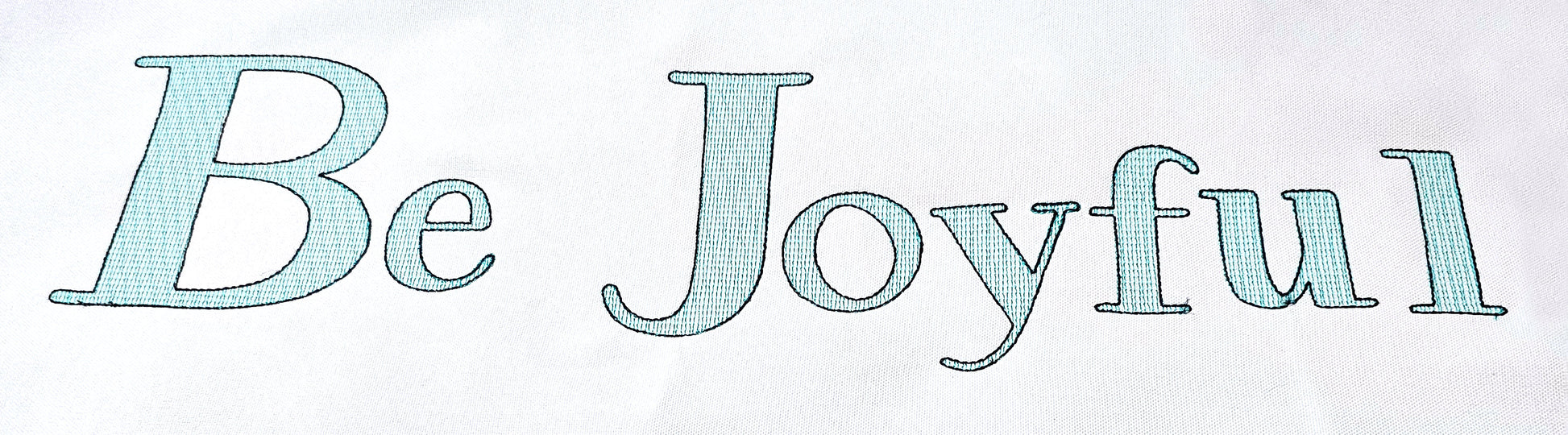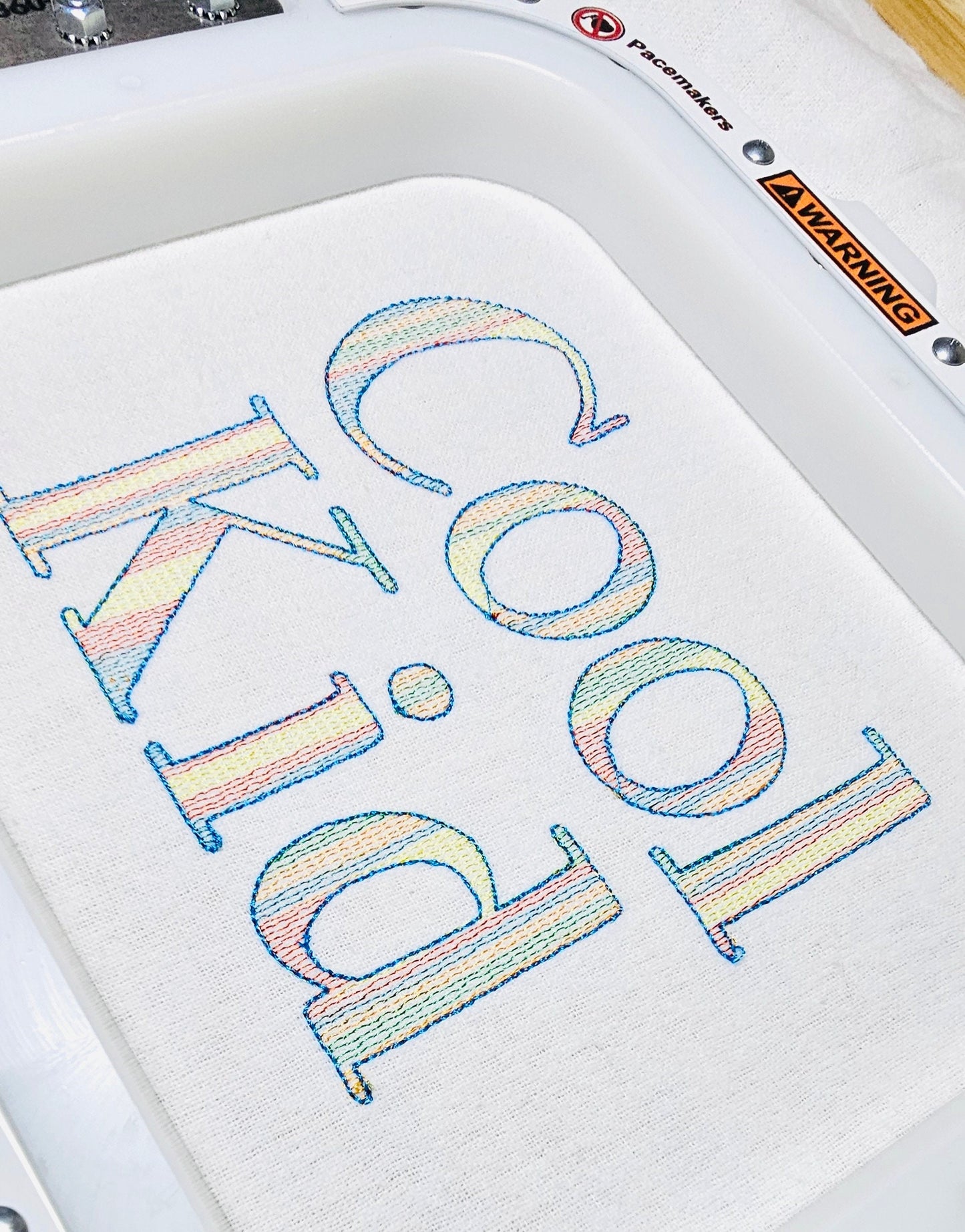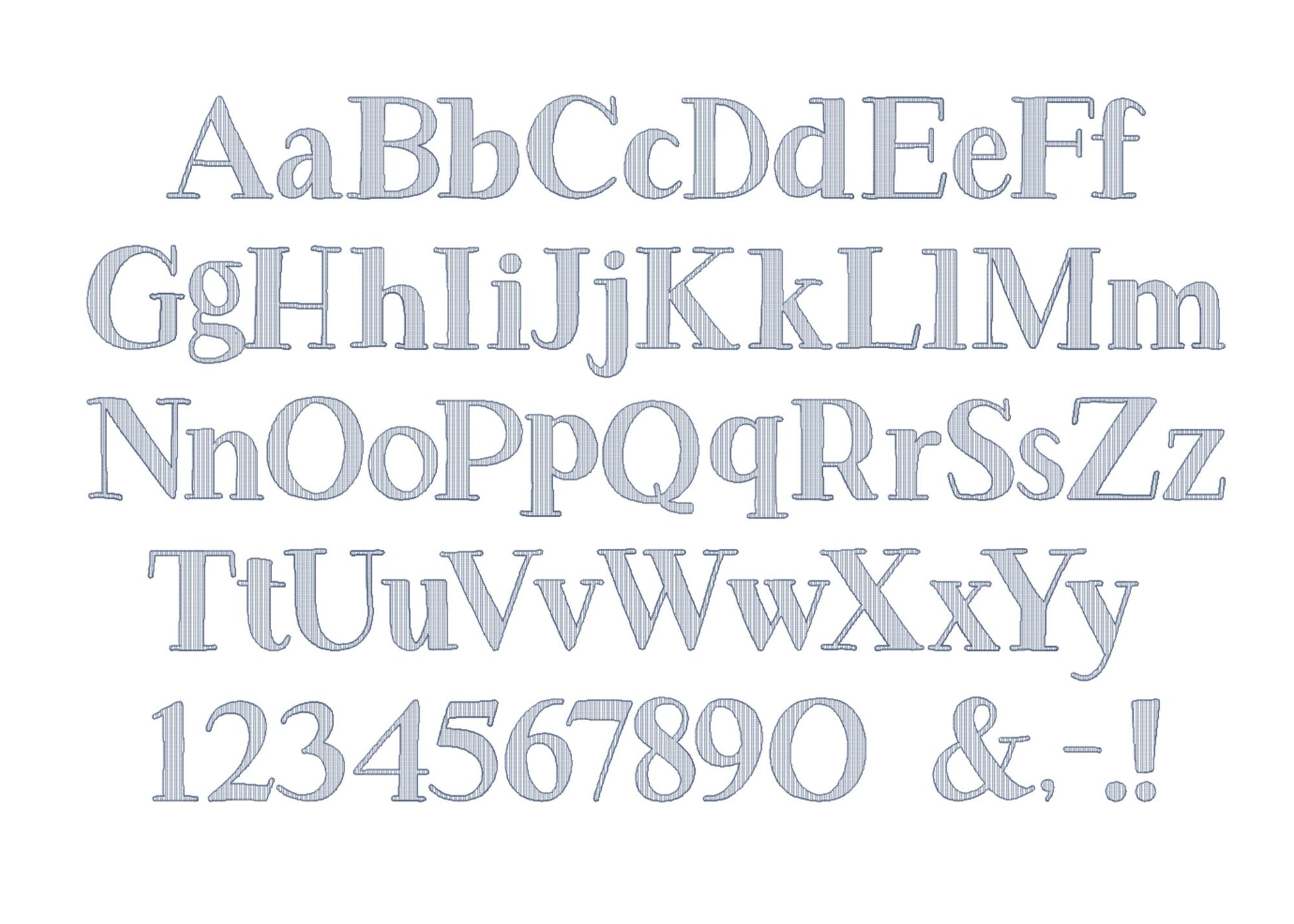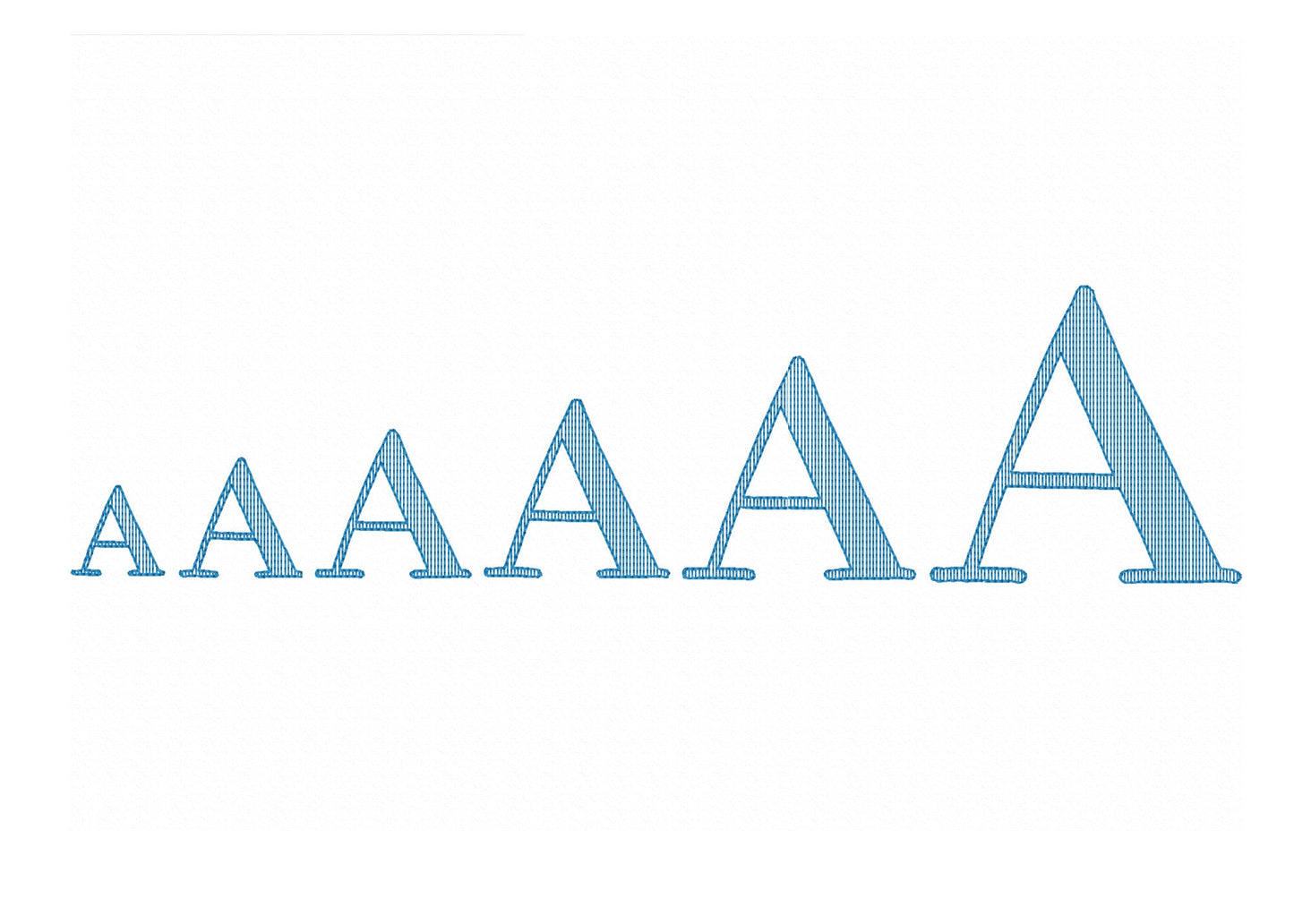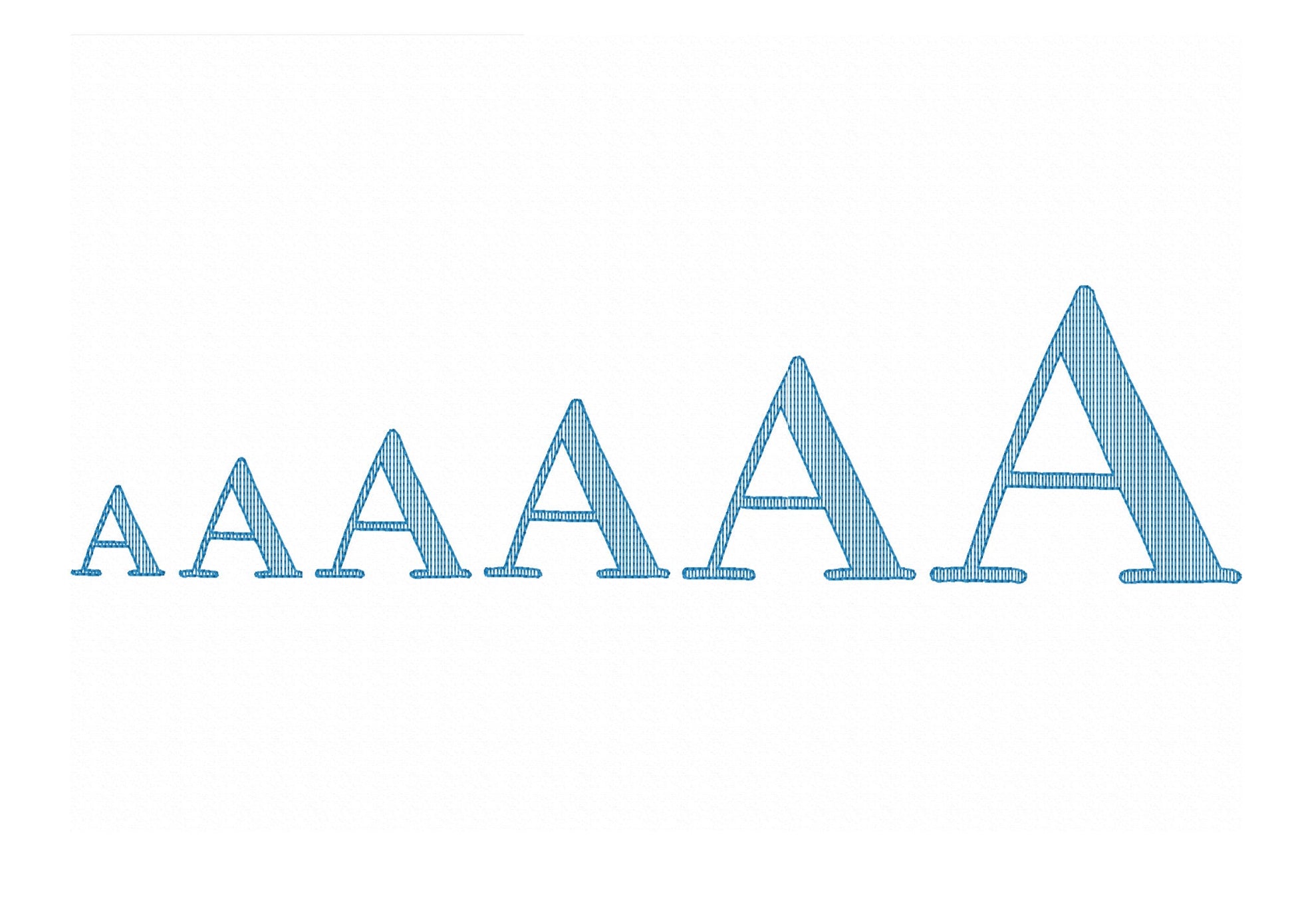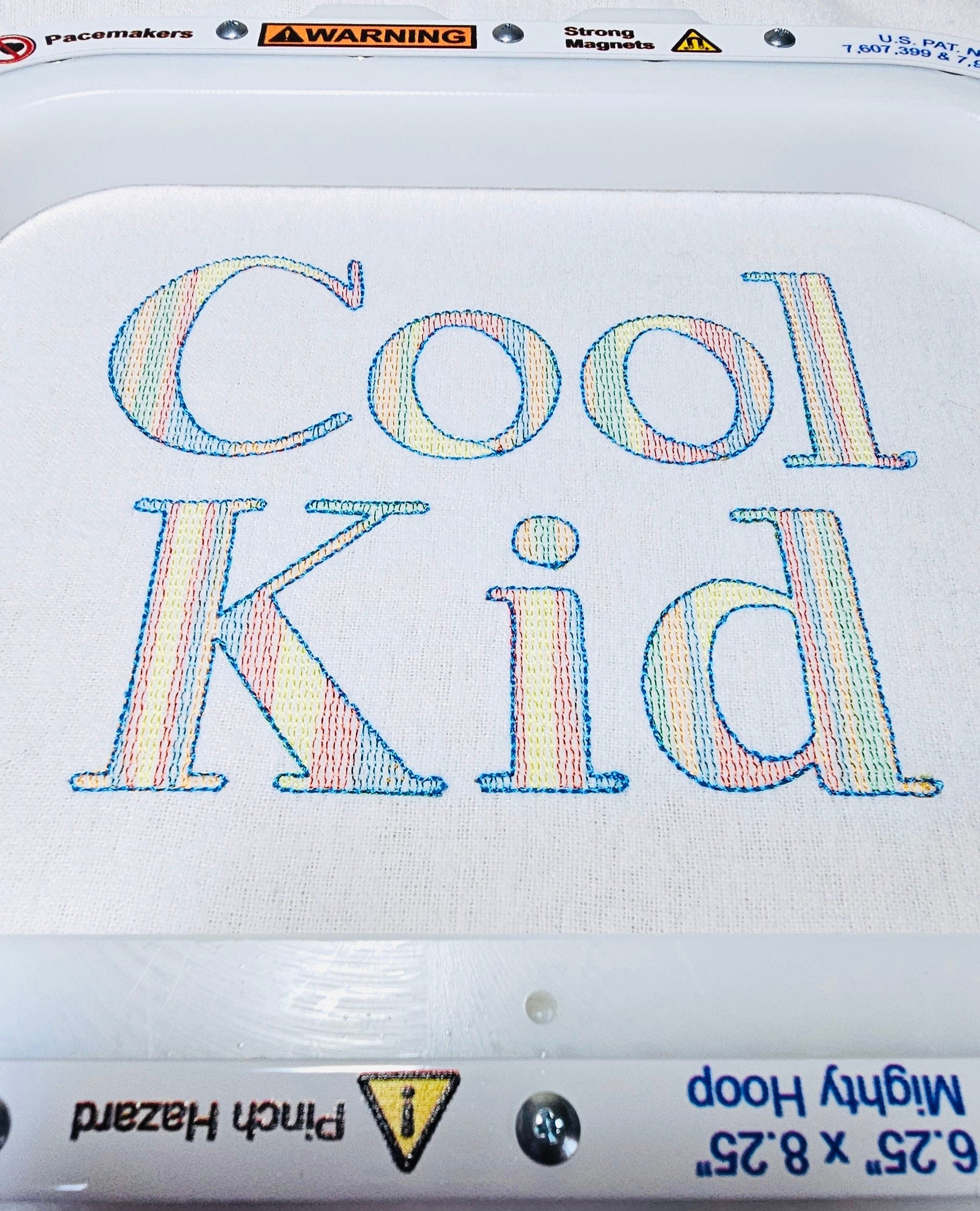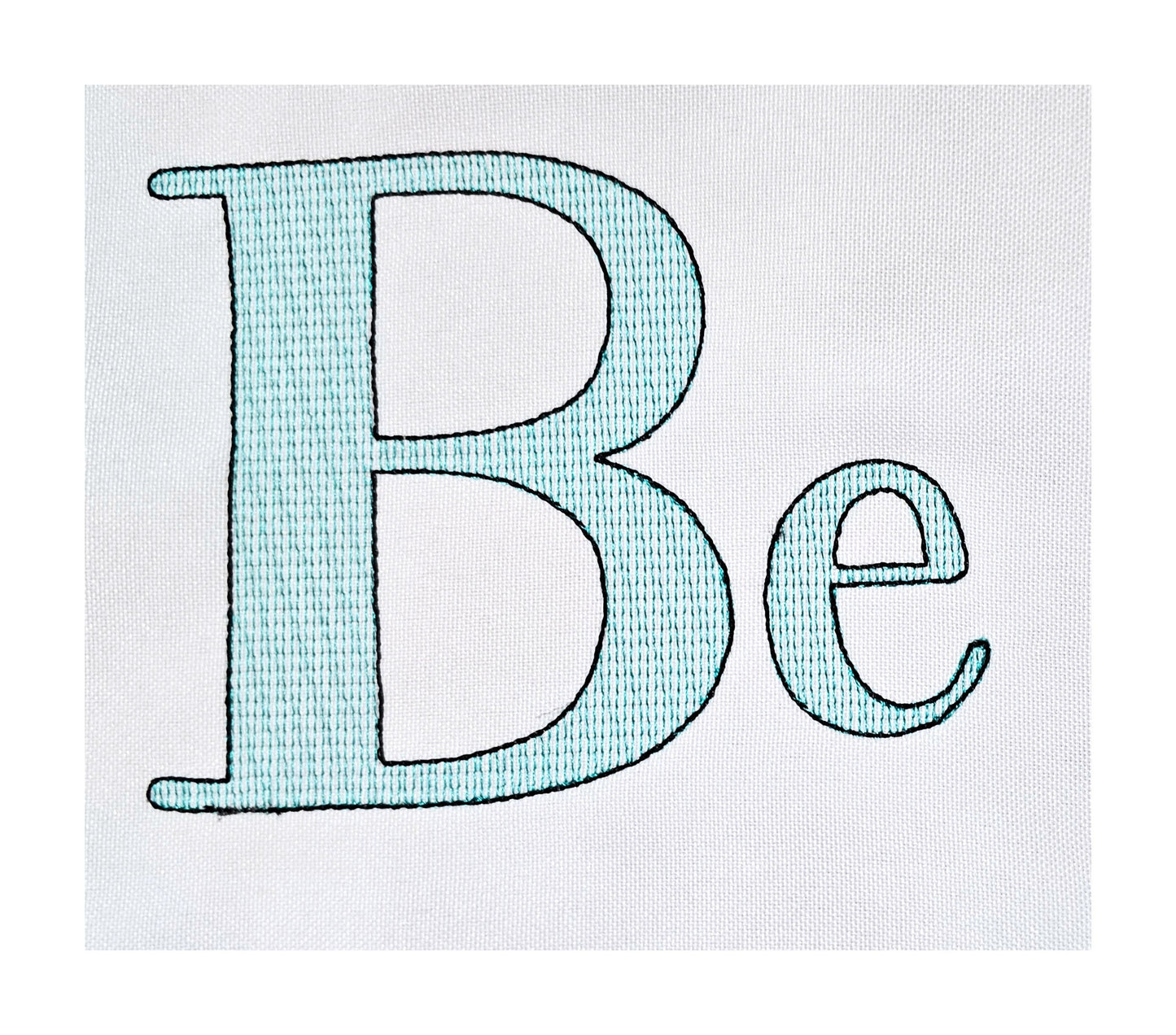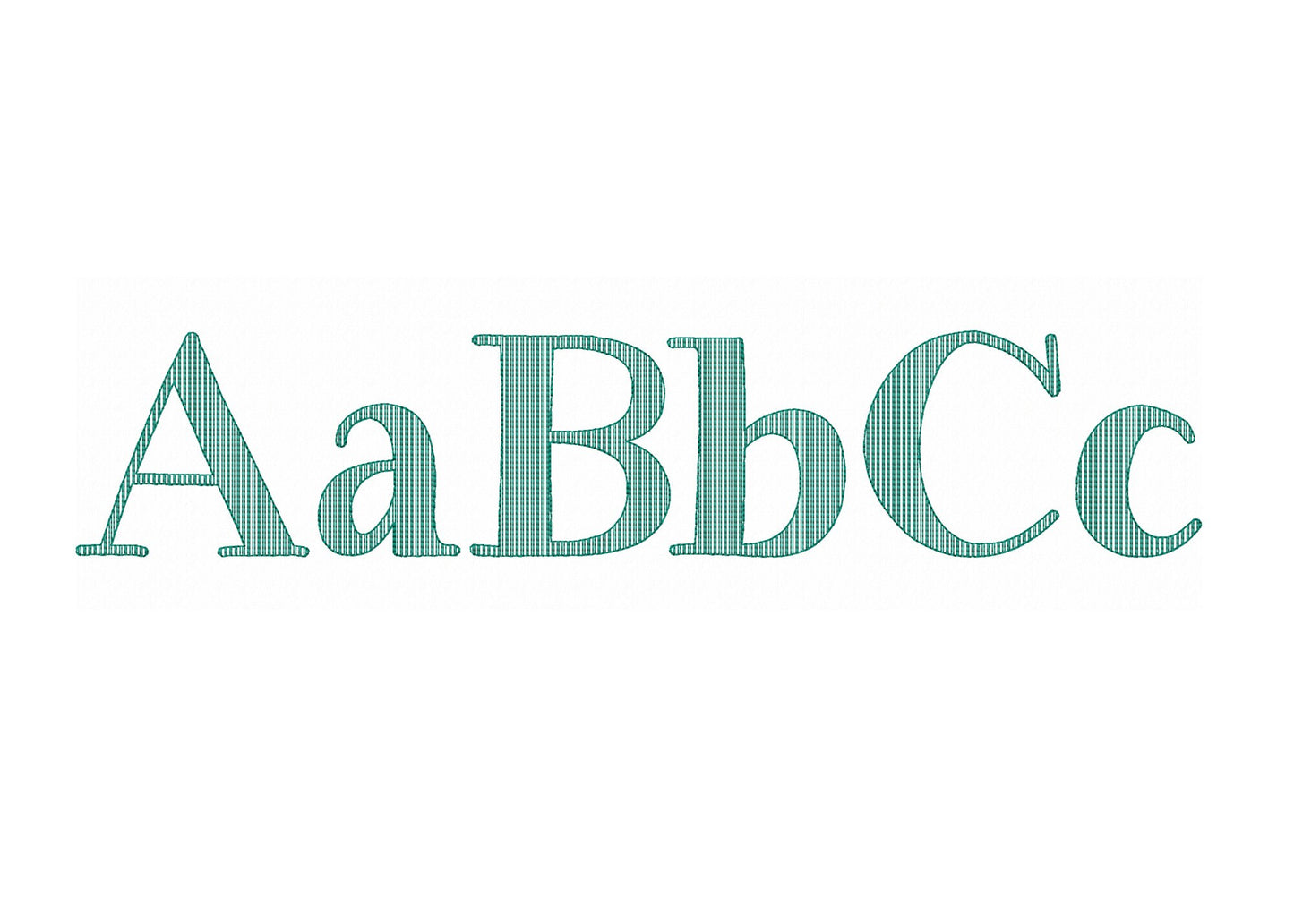
Quick Light Stitch City Font
Or click to open the linkA quick light-stitch city font with a bean stitch outline, for names and words on shirts, bags and pillows.
Light, low-density fill lets the fabric show through, best on white or light fabric. Uppercase and lowercase letters, numbers and punctuation in six sizes: 1, 1.4, 1.7, 2, 2.5 and 3.4 inches.
- Quick light stitch city font
- Uppercase, lowercase, numbers, punctuation
- 6 sizes, 1 to 3.4 in